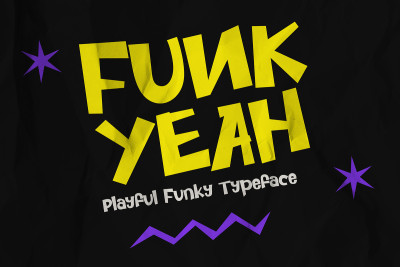
Funk Yeah - Playful Funky Font
Funk Yeah - Playful Funky is a professional-grade typeface designed to elevate branding, editorial, and identity projects.
Its proportions suit a wide range of uses: website headers, printed flyers, restaurant menus, annual reports, and product packaging.